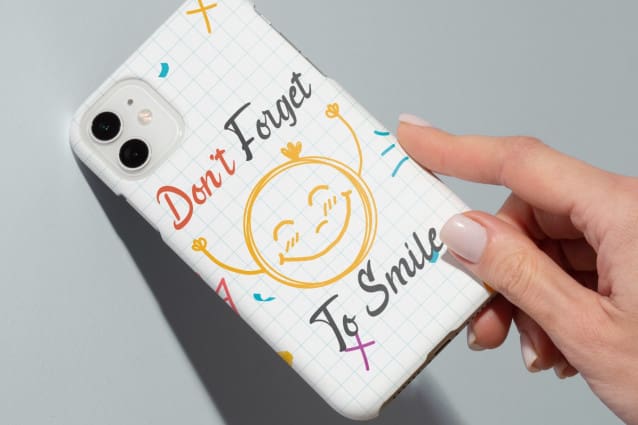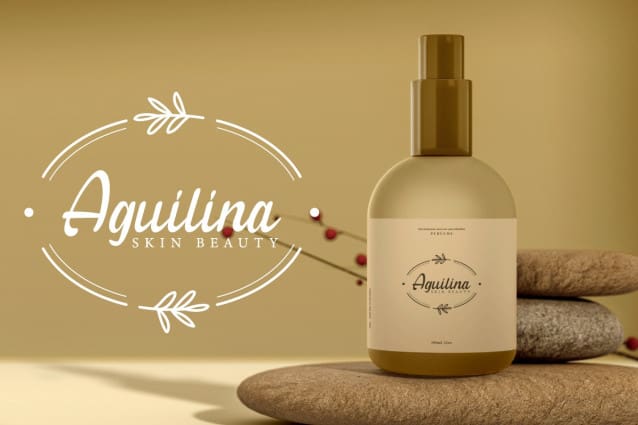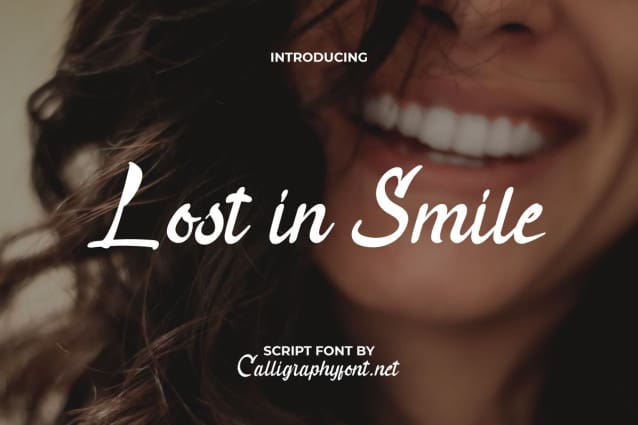
Lost In Smile Font
Lost in Smile Font is a gorgeous calligraphic script font with beautiful brush strokes forming curves in all sorts of stunning vibes. Typography with a modern look and feel that will bring joy to anyone with a special brush stroke to make things stand out. It is perfectly made to apply especially to any creative project, such as book, case design, invitation, label, logo, packaging, quote, screen print, website or any type of advertising purpose.